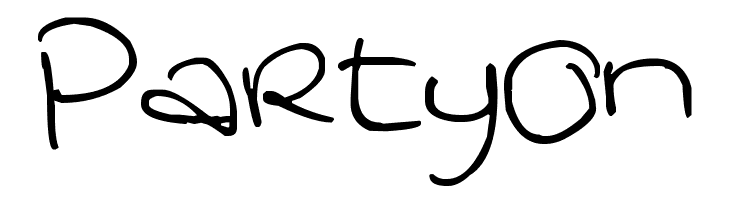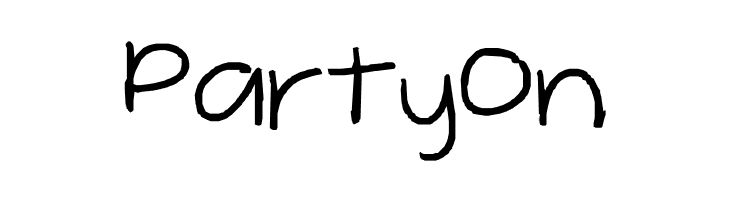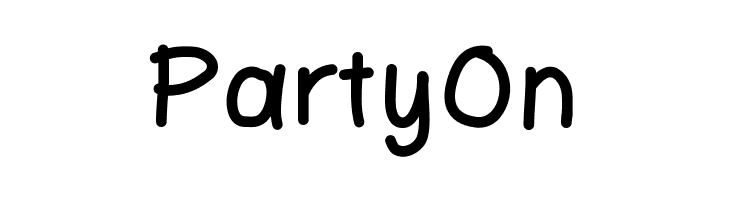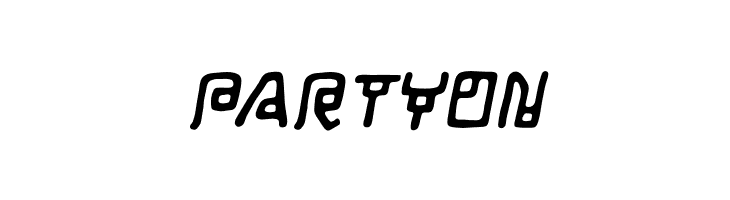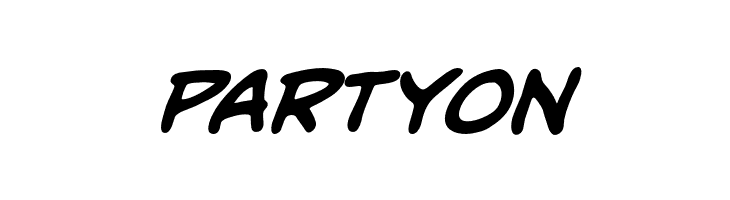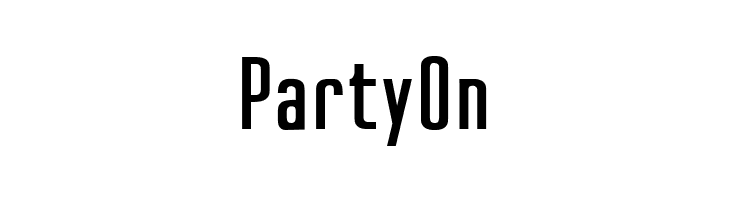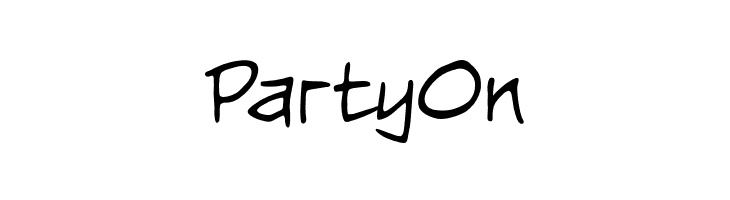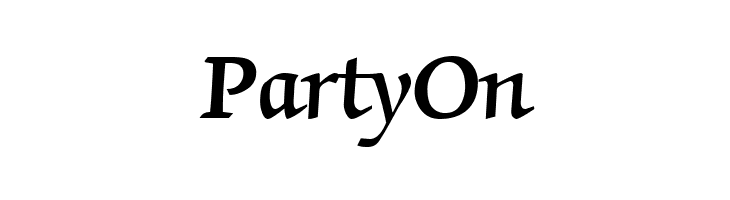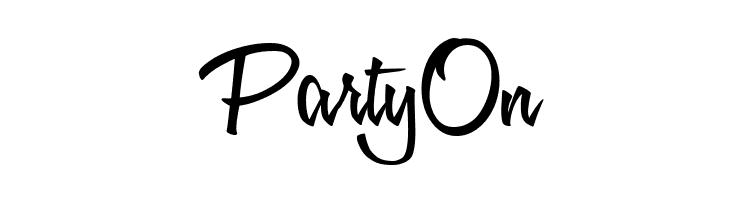
A modern sans-serif font with clean lines and a slightly condensed structure.
A modern, italic font with clean lines and a slightly condensed style.
A bold, modern font with a slightly condensed style and playful elements.
A bold, modern font with a slightly decorative and dynamic style.
A modern sans-serif font with clean lines and a slightly condensed width.
A playful and whimsical font with bold, slightly condensed uppercase letters and rounded lowercase letters.
A bold, textured, and slightly italicized font with a playful, vintage feel.
A playful, whimsical font with rounded, slightly irregular letterforms.
A playful, bold font with rounded, slightly irregular letterforms.
A bold, rounded, and slightly italicized font with a playful and friendly style.
A playful, bold, and slightly slanted font with rounded edges.
A modern sans-serif font with a clean, professional appearance and slightly condensed structure.
A modern, italic sans-serif font with clean lines and a slightly condensed form.
A bold serif font with rounded serifs and a slightly condensed style.
A bold, playful font with dynamic, slightly irregular letterforms.
A bold, playful font with a three-dimensional outline and rounded, slightly italicized characters.
A bold, playful font with rounded edges and a slightly condensed style.
A playful, bold font with rounded, slightly irregular letterforms.
A bold, playful font with a whimsical and slightly gothic style.
A bold, hand-drawn font with a dynamic and slightly distressed appearance.
A modern, italicized sans-serif font with a clean and slightly condensed style.
A modern, slightly condensed sans-serif font with an italic slant.
A bold, playful font with a slightly condensed and whimsical style.
A playful, rounded font with consistent stroke thickness and a slightly condensed style.
A playful, bold outline font with rounded, slightly slanted characters.
A playful, bold font with rounded, thick strokes and a slightly slanted, dynamic appearance.
A dynamic and expressive handwritten font with fluid, slightly slanted letterforms.
A playful, bold font with rounded edges and a slightly condensed form.
A playful, whimsical font with smooth, flowing curves and slightly irregular letterforms.
A playful, casual handwritten font with flowing, slightly irregular letterforms.
A classic, elegant font with flowing, slightly cursive letterforms and moderate contrast.
A modern, geometric sans-serif font with clean lines and a slightly condensed style.
A modern sans-serif font with clean lines and a slightly condensed style.
A modern sans-serif font with clean lines and a slightly condensed width.
A modern, clean sans-serif font with uniform strokes and slightly condensed proportions.